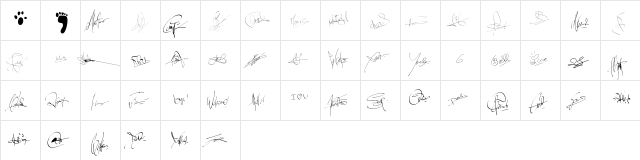
Complete PWSignatures Medium glyph index. Displaying only characters natively supported by PWSignatures Medium font.
PWSignatures is a composed and adaptable typeface that performs quietly and consistently across a wide range of design contexts.